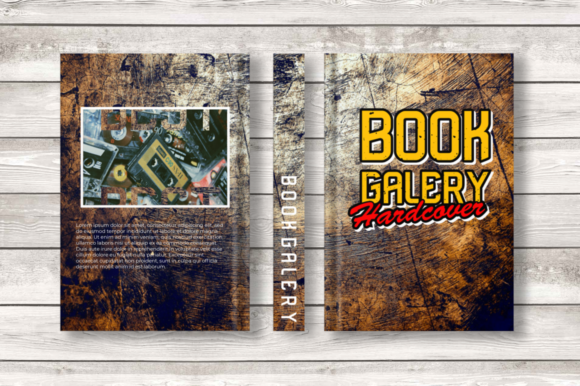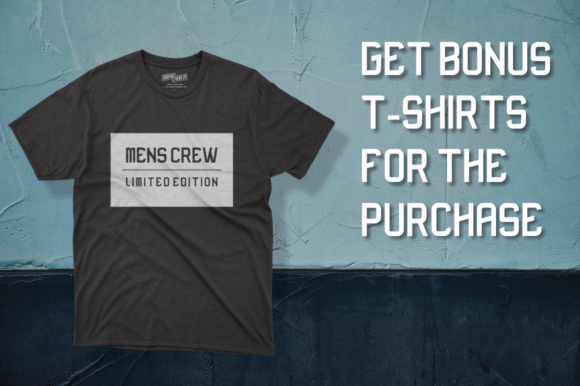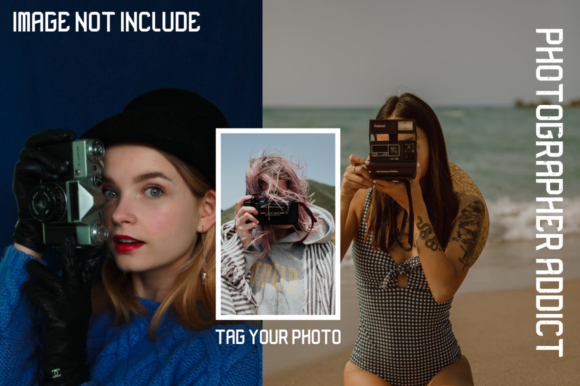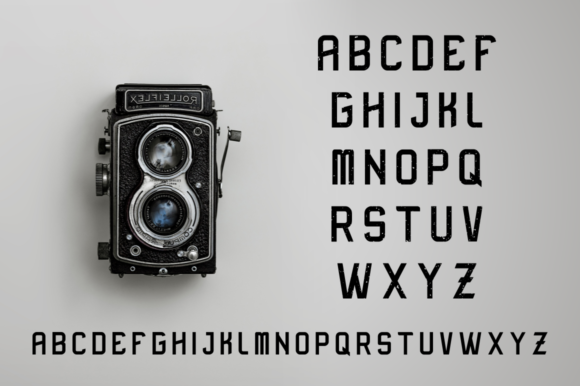
Introduction to Rusher Font
Rusher is a cool, vintage styled display font.
Rough textured and unique, this font will make each of your designs look out of this world .